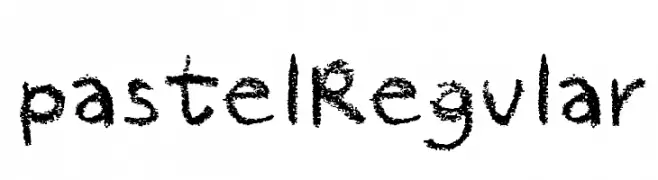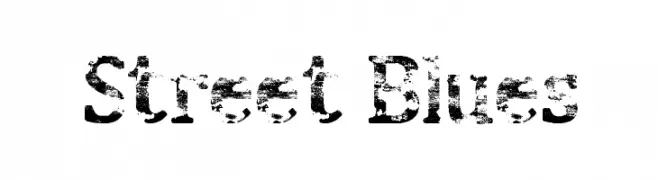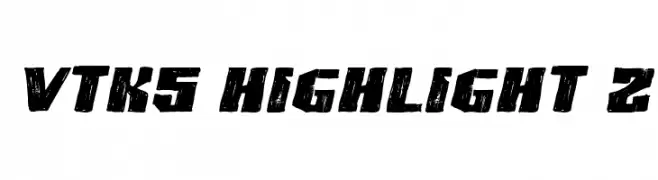
A distressed serif font with a grunge, textured style.
A bold, distressed font with a rugged, textured appearance.
Bold, italicized font with a distressed, textured look.
A bold, textured font with a graffiti-like, artistic style.
A bold, hand-drawn font with a sketch-like, textured appearance.
A distressed, grunge-style font with a textured, urban appearance.
A bold, distressed font with a rugged, textured appearance.